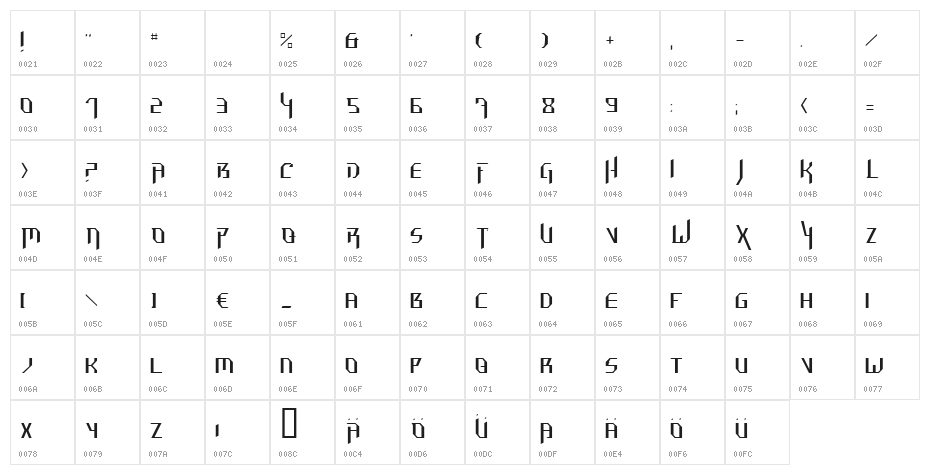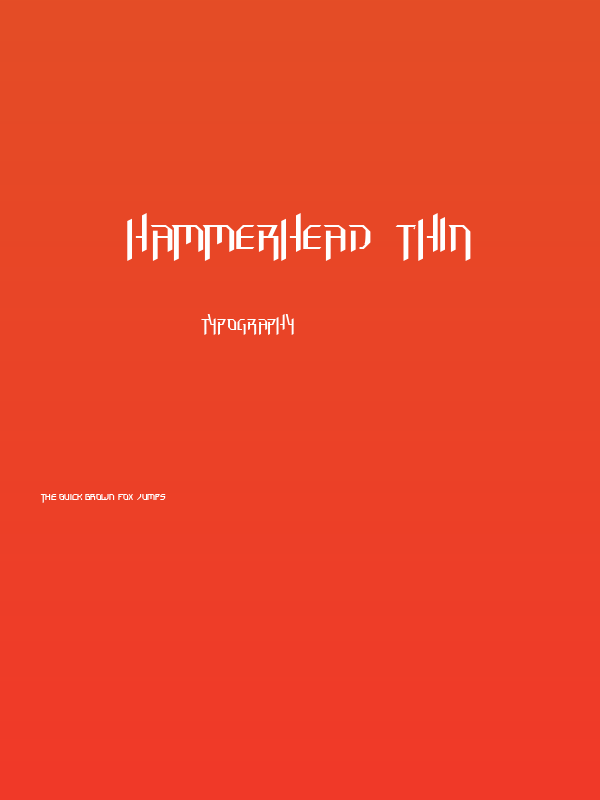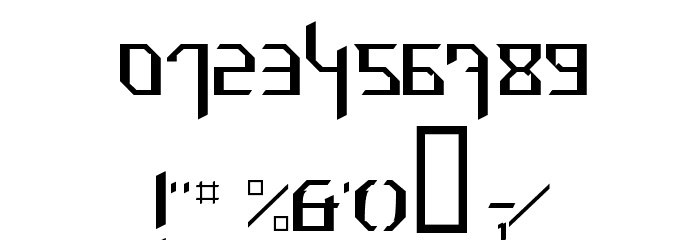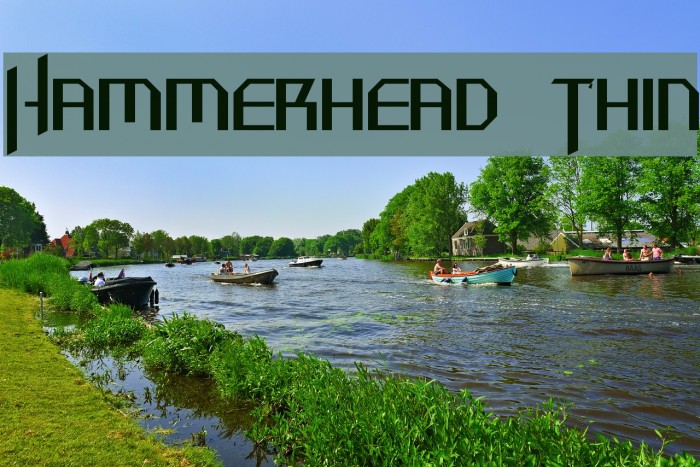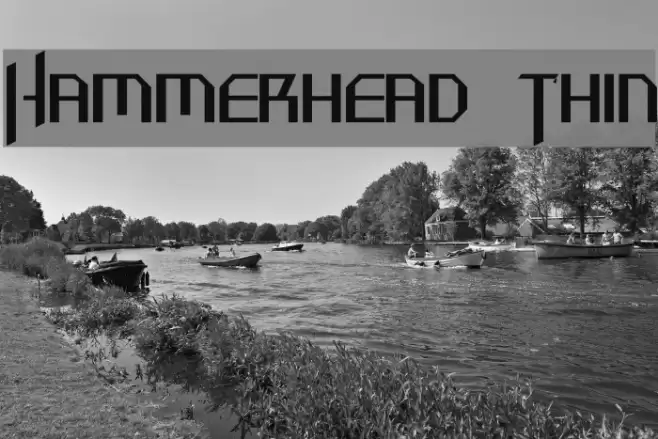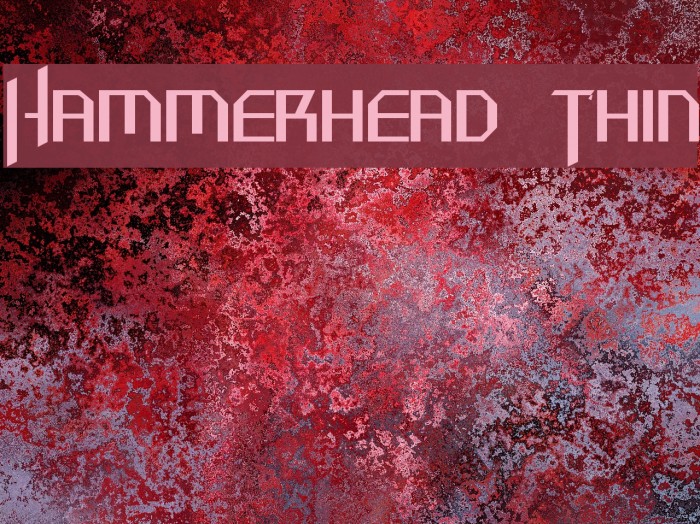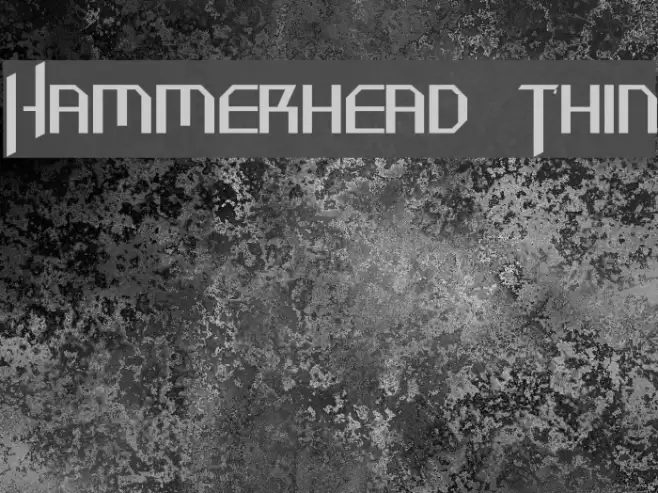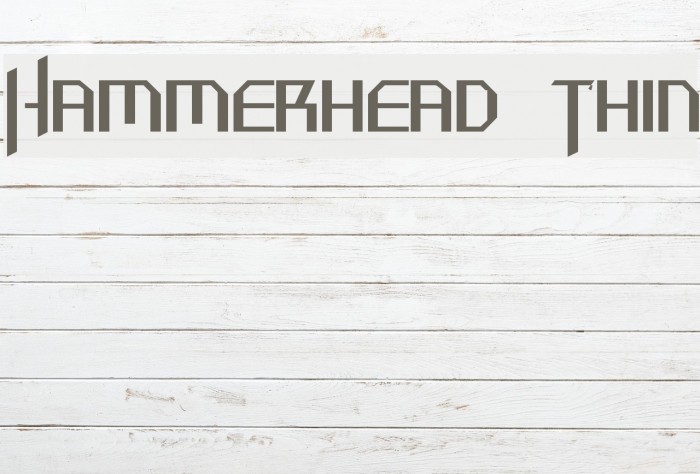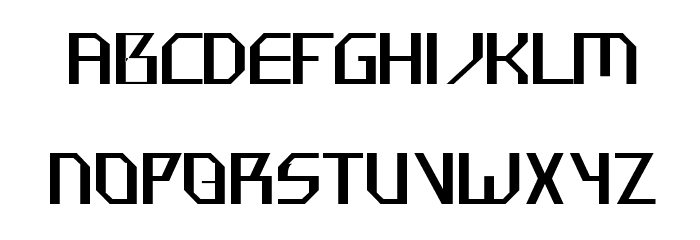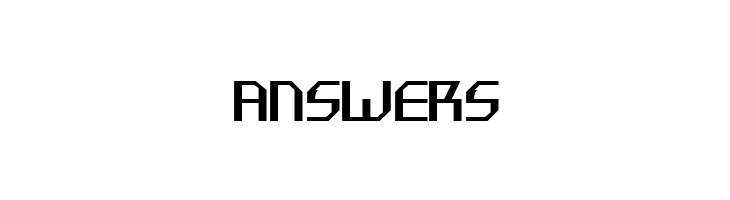
Hammerhead Thin Font
Hammerhead Thin Description
This font features a bold and geometric design, characterized by sharp angles and a futuristic aesthetic. The uppercase letters have a distinct angularity, with strokes that are both thick and thin, creating a dynamic visual contrast. The lowercase letters maintain this angular style, ensuring consistency throughout the typeface. Numbers and special characters are designed with the same geometric precision, making them stand out with a modern edge. The overall appearance is striking and would be suitable for projects that require a bold and contemporary look.
| Proposed Projects | Ideal for branding, posters, video game graphics, and sci-fi themed projects. |